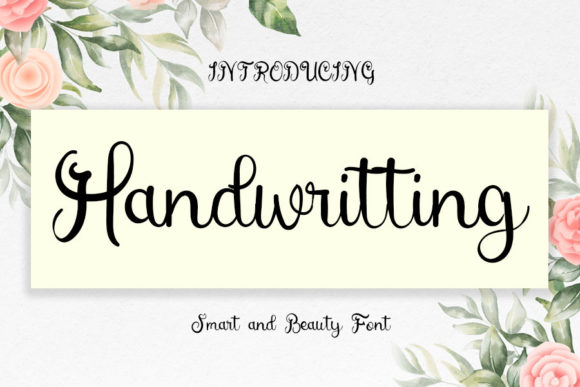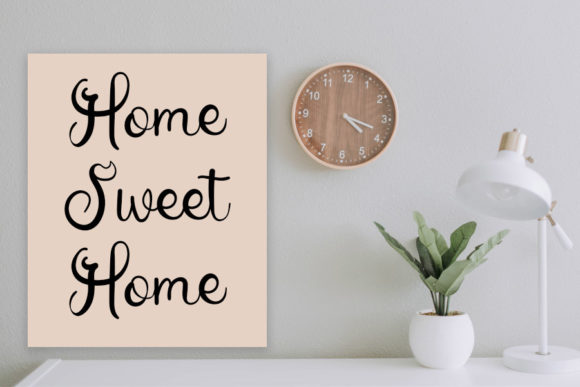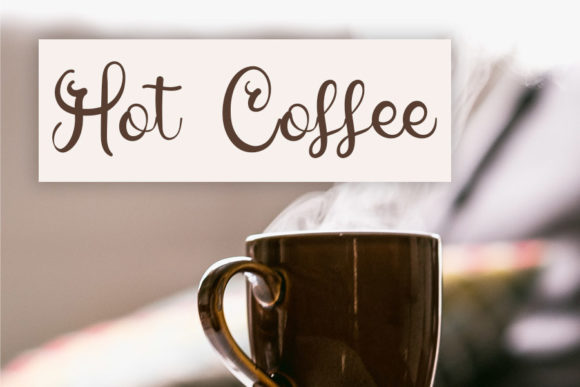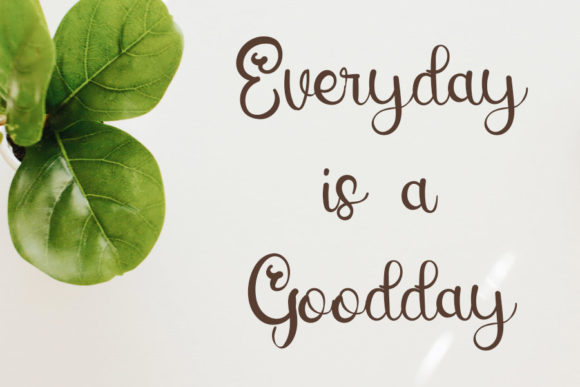
About Handwritting Font
Handwriting is a lovely and timeless handwritten font that exudes charm and elegance. With its unique and beautiful letterforms, this font is the perfect choice for creating eye-catching logos, branding materials, and quotes that truly come alive.
The handcrafted nature of Handwriting adds a personal and authentic touch to your designs. Each letter is carefully crafted with attention to detail, resulting in a font that feels organic and natural. The variations in letterforms give it a unique and artistic quality, making your design stand out from the crowd.
When used in logos and branding, Handwriting adds a touch of sophistication and personality. Its elegant and timeless style creates a sense of trust and authenticity, making your brand more memorable and relatable. Whether you’re designing for a luxury brand, a boutique business, or a creative endeavor, Handwriting elevates your visual identity with its unique charm.
In quotes and typographic designs, Handwriting brings warmth and character. The flowing and expressive letterforms convey emotion and convey the message with a personal touch. Whether you’re designing quote graphics for social media, typographic posters, or inspirational prints, Handwriting adds a sense of intimacy and connection.
The versatility of Handwriting extends beyond logos and quotes. It can be used in various design projects where a touch of elegance and handcrafted charm is desired. From packaging design to invitations, from book covers to stationery, Handwriting brings a timeless and captivating allure to your creations.
In summary, Handwriting is a lovely and timeless handwritten font that adds a unique and beautiful touch to your designs. Its versatility makes it suitable for logos, branding, quotes, and a variety of other design projects. Embrace the charm of Handwriting and let it infuse your designs with elegance and personality.